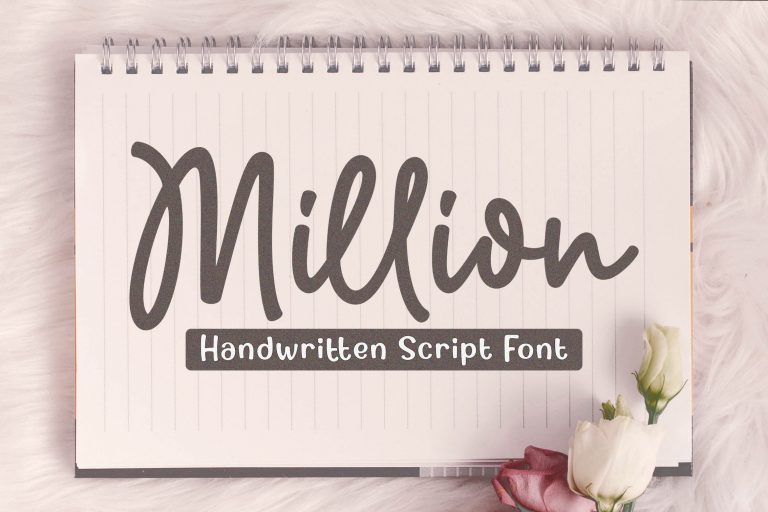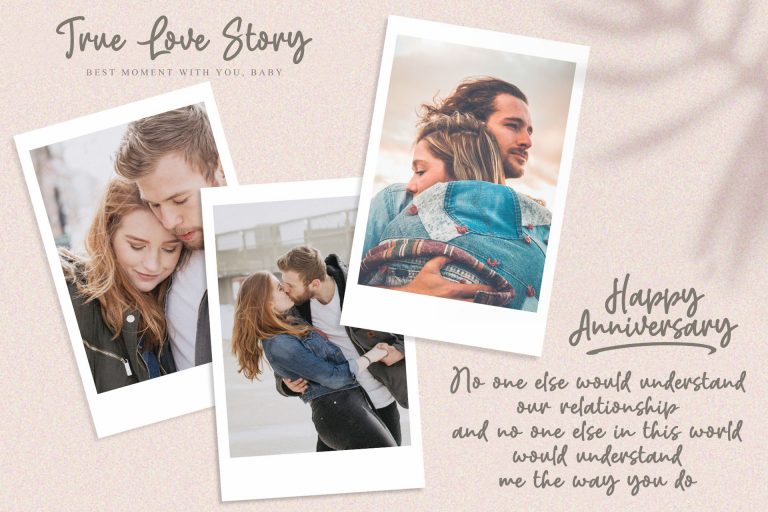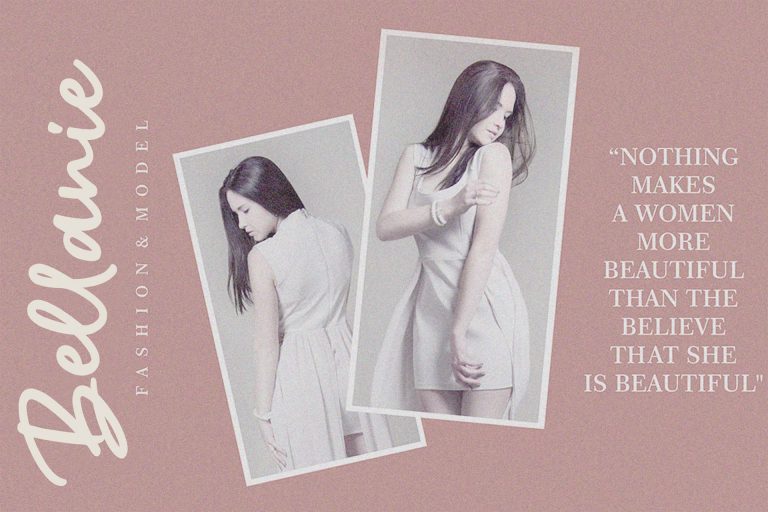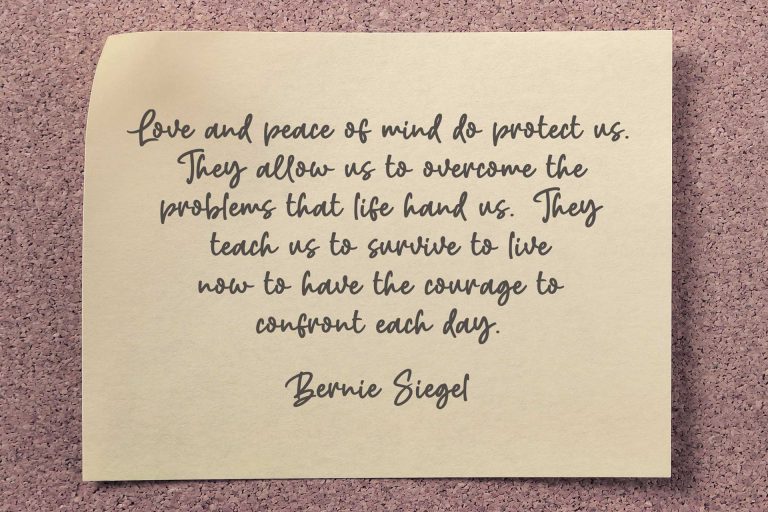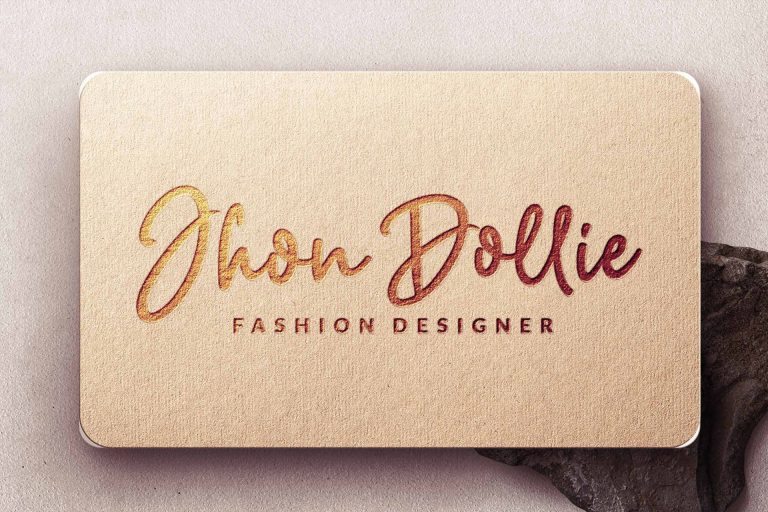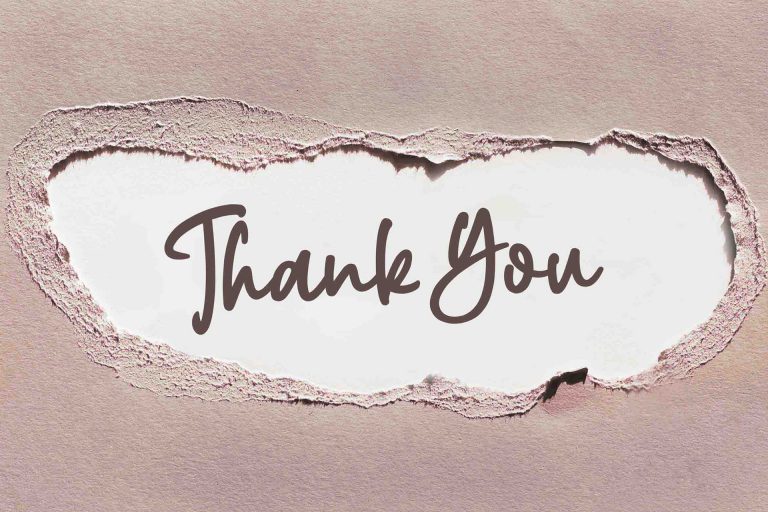
- Million – Natural Handwritten Font
Million is a natural handwritten Script font. Its unique flow and easy signature style makes it perfect to use for invitations, logos, signatures,
quotes, wedding, labels, packaging design, blog headlines or simply use it in your next design project.